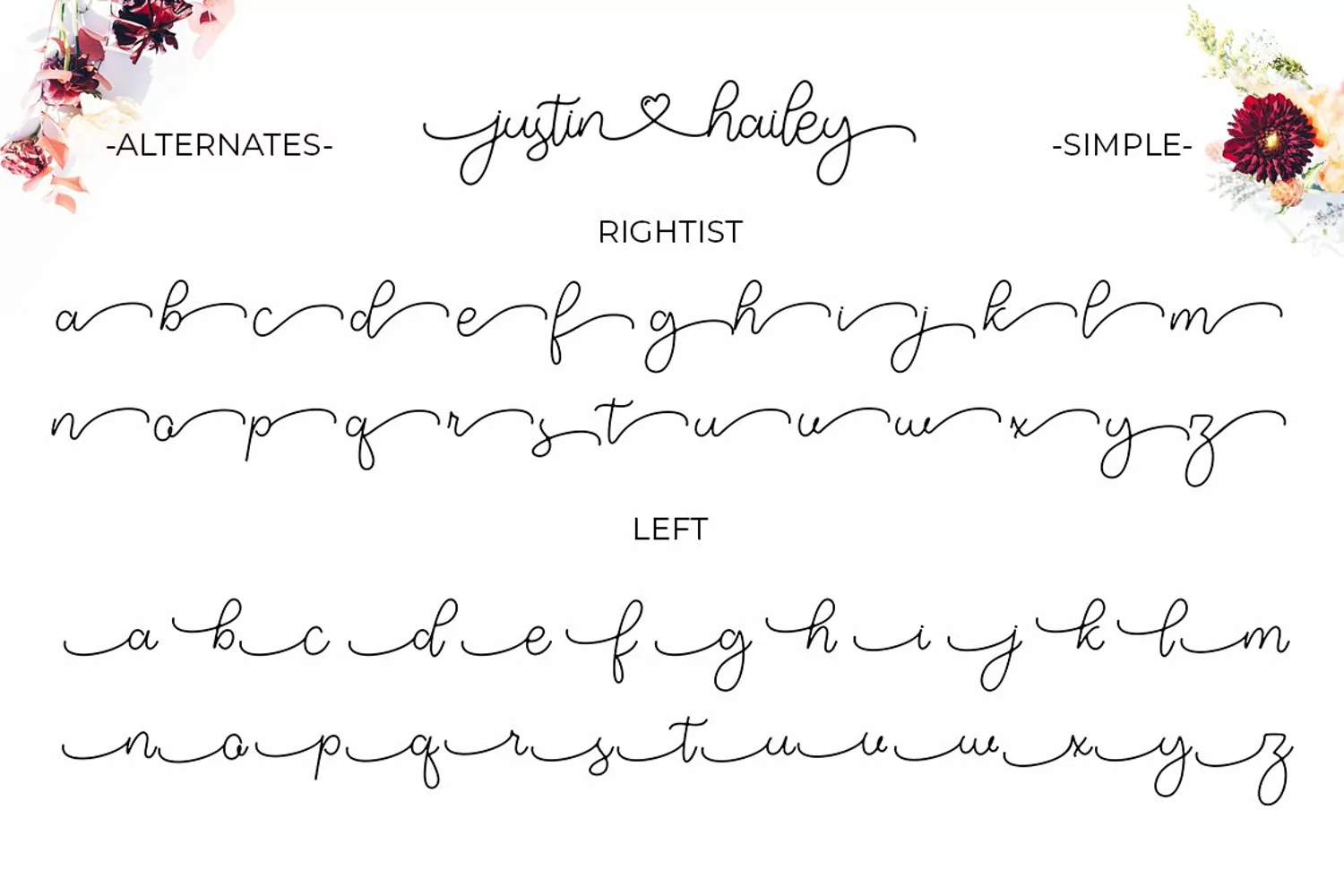
Justin Hailey - Monoline Calligraphy Love
Justin Hailey is a monoline calligraphy font Love. This font is casual and beautiful with a distinct style. Can be used for various purposes, such as logos, product packaging, wedding invitations, branding, headlines, signage, labels, signatures, book covers, posters, quotes, and many more.